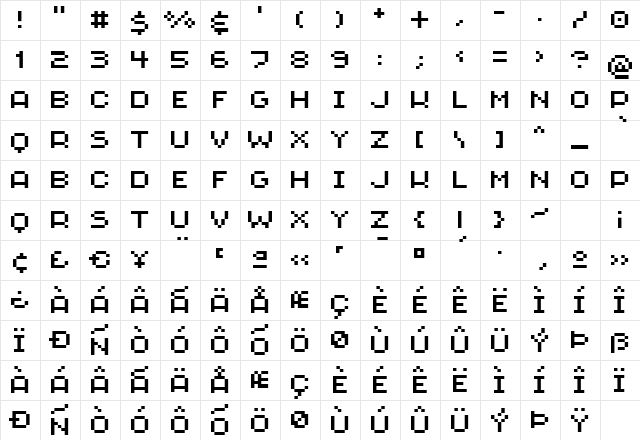
Genetica Regular
Design Context for Genetica Typeface
Genetica is a composed and adaptable typeface that performs quietly and consistently across a wide range of design contexts.